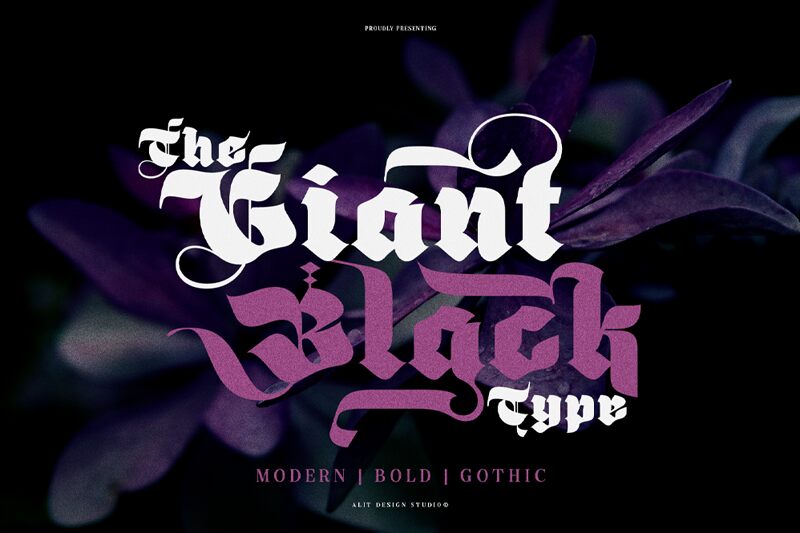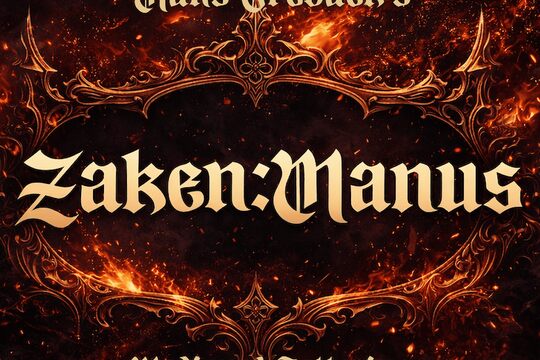
Giant Black font by Alit Design is a free decorative style that managed to incorporate historical influences while still maintaining a modern twist. With its dramatic appearance, this font reveals a sophisticated character that carries boldness and courage. The visual complexity Giant Black offers is both surprising and beautiful, thanks to the intricate flourishes implemented in every letter.
Gothic fonts in general have strong energetic and mesmerizing appearances, which makes this addition a great choice for poster designs, sign designs, and printed media projects. Stand out on book covers with Giant Black or engage viewers with creative artwork.
Introducing "The Giant Black Typeface," an embodiment of boldness and elegance, crafted with meticulous attention to detail. This free font combines the weighty presence of blackletter with intricate swashes, captivating ligatures, versatile alternates, and the flexibility of PUA Unicode features.
Each stroke exudes power and sophistication, making it ideal for commanding headlines, striking logos, or adding a touch of grandeur to any design project. Whether you're creating a medieval-inspired masterpiece or a contemporary design, "The Giant Black Typeface" stands tall, ready to make a statement.
Unlock the potential of your designs with this versatile font, where tradition meets modernity and boldness meets finesse. Elevate your typography game with "The Giant Black Typeface" and leave a lasting impression with every letter.